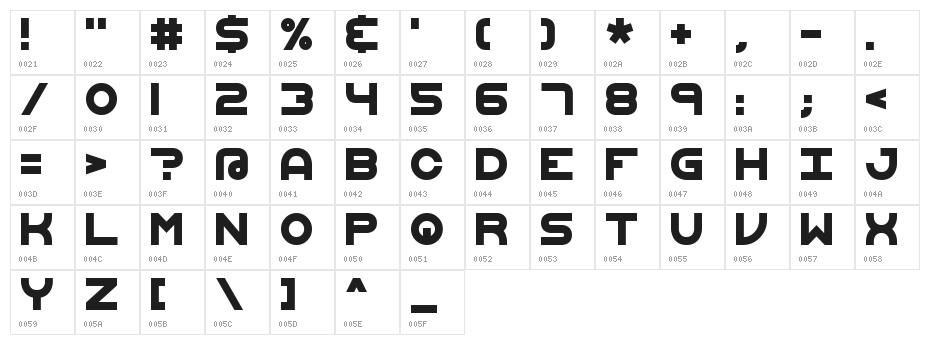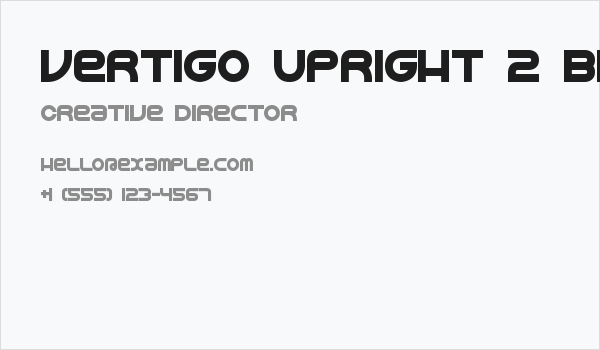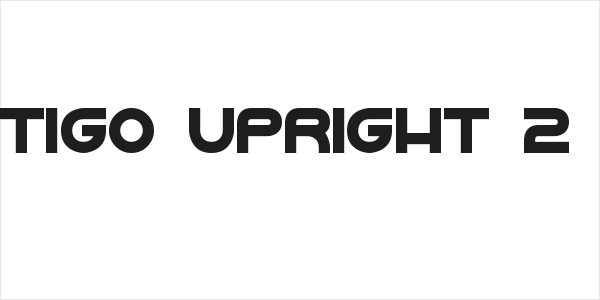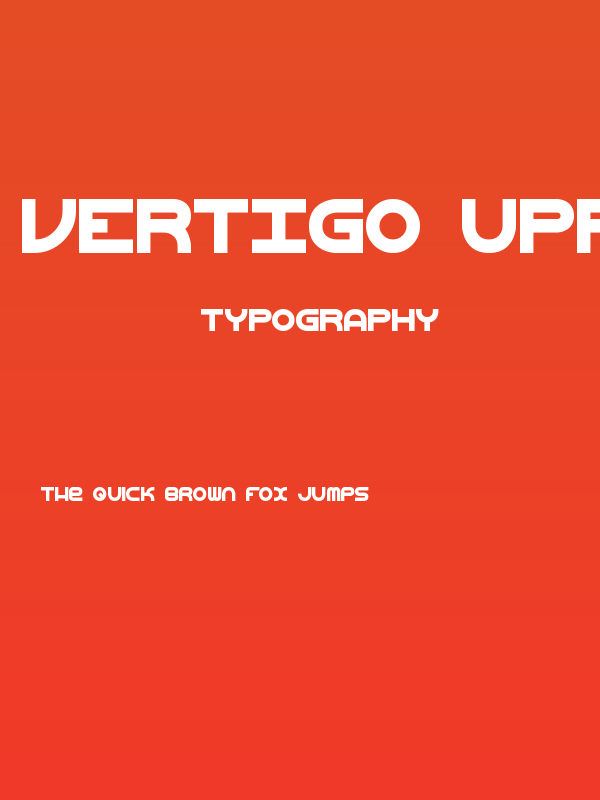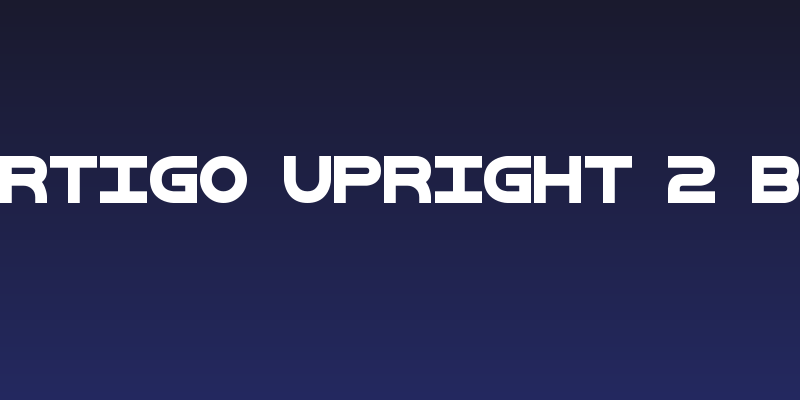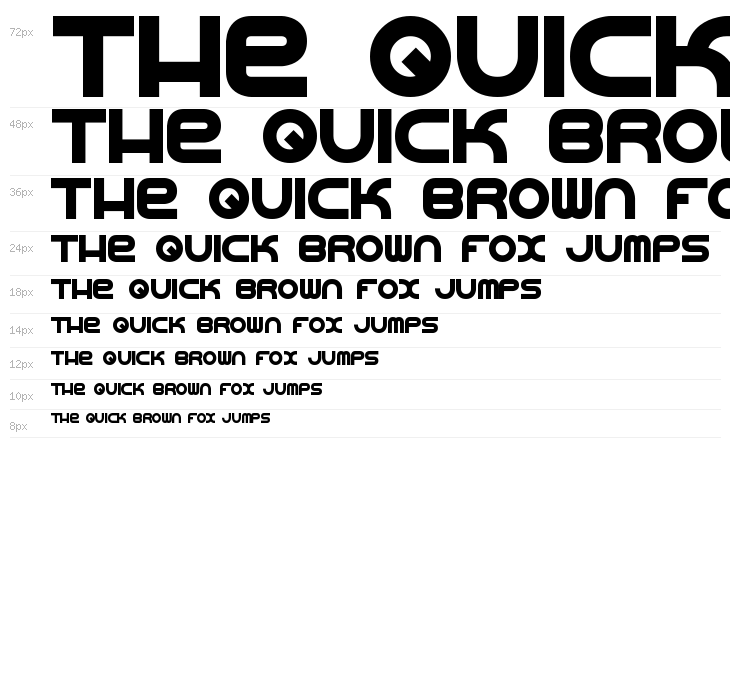
Vertigo Upright 2 BRK Font
Vertigo Upright 2 BRK Description
This font features a bold, geometric design with a futuristic flair. The characters are constructed with thick, uniform strokes, creating a strong visual impact. The uppercase letters have a distinct, blocky appearance, while the lowercase letters maintain a similar style with slight variations in curvature. The numbers are equally bold and consistent, ensuring readability. Special characters are designed to match the overall aesthetic, making them suitable for attention-grabbing designs. The font's unique style makes it ideal for projects that require a modern and edgy look.
| Proposed Projects | Ideal for sci-fi themed designs, technology branding, video game titles, and futuristic posters. |